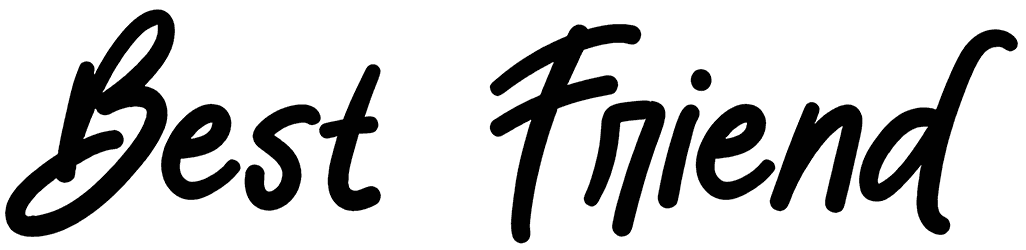
Best Friend Font
Most of the time, a minimal and natural lettering face, like what this script font offers, can act as a timeless and popular visual. Varied designs from a postcard to a letter can be charming with a handwritten font, and you have this chance to make it happen. Best Friend is a part of our amazing collection, and you have countless options for your present or future designs.